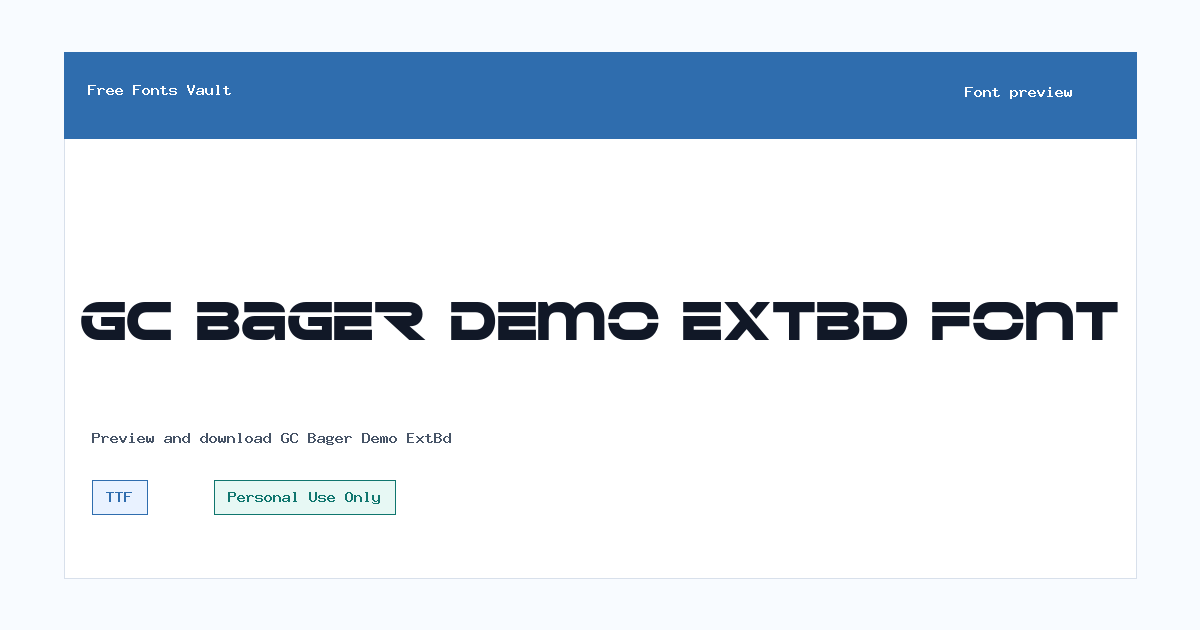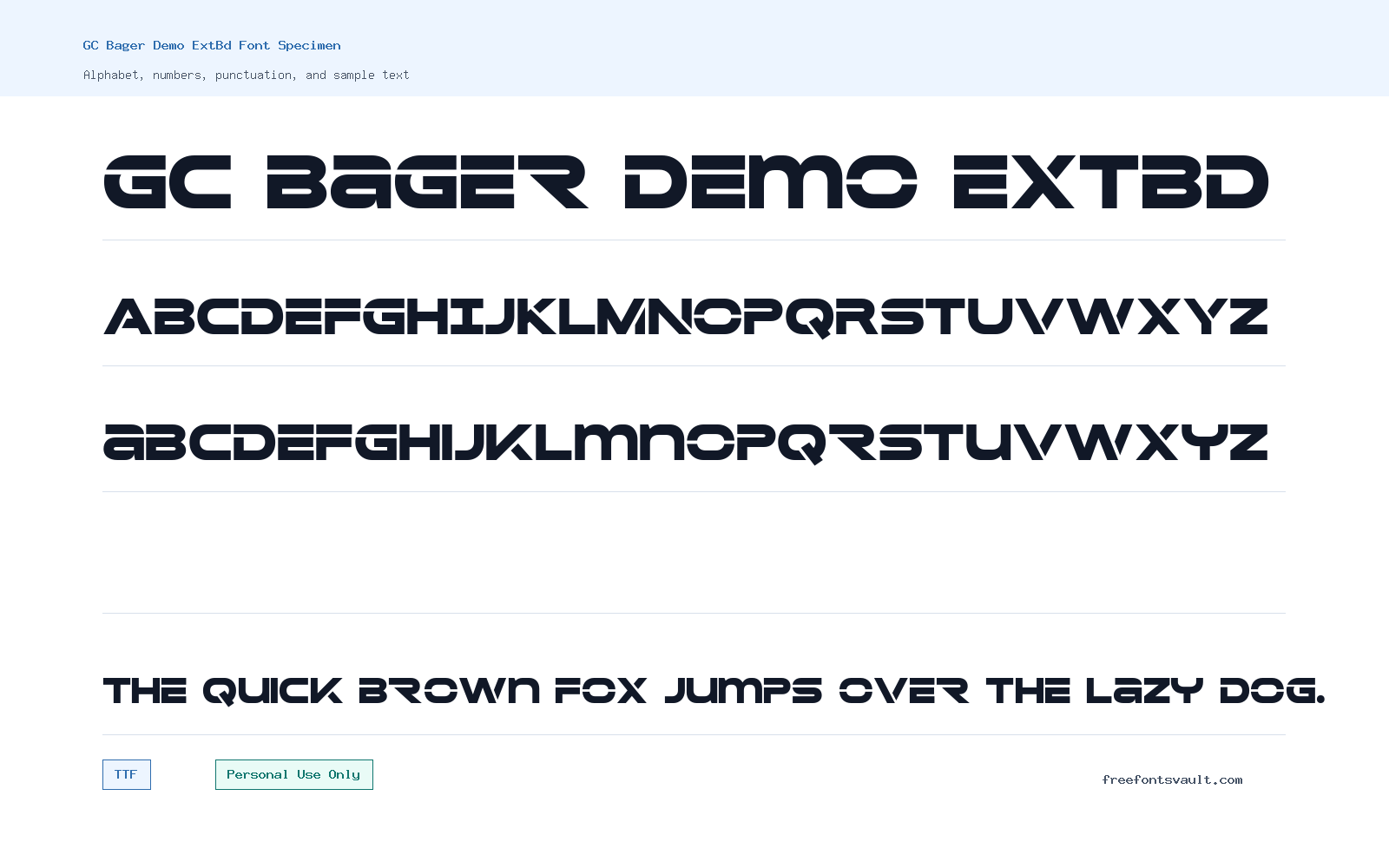
GC Bager Demo ExtBd
GC Bager Demo ExtBd font preview showing the family name
GC Bager Demo ExtBd Font
GC Bager Demo ExtBd font specimen showing alphabet, numbers, and sample text
GC Bager Demo ExtBd is an extra-bold sans serif demo font made for strong, compact display text. It is best treated as a personal-use font, so check the license carefully before using it in client, brand, product, or commercial work.
About GC Bager Demo ExtBd Font
GC Bager Demo ExtBd has the kind of heavy weight that works best when the text needs to be noticed quickly. The ExtraBold style gives words a firm presence, making it more suitable for short headlines than for long reading passages. Use the preview area to test uppercase words, short brand-style names, poster titles, and social graphics before downloading, because bold display fonts can feel very different depending on letter spacing, word length, and background contrast.
This font is a practical choice for mockups, personal posters, concept logos, title cards, packaging drafts, and web design experiments where you need a solid sans serif look. Keep the text short and give it enough space. If the letters feel crowded, increase tracking slightly or use fewer words. For web mockups, test it at large sizes first, then pair it with a calmer body font for descriptions, navigation, or supporting text. Since the file is a TTF font, it should work in many common design apps, but always test it in your own software before committing to a layout.
• Extra-bold sans serif style suited to display use
• Works best for short, high-impact text rather than long paragraphs
• Poster titles and event graphics
• Personal logo concepts and brand mockups
• Social media headers and quote graphics
• Website hero mockups and landing page headings
• Packaging drafts, labels, and bold display experiments
Use GC Bager Demo ExtBd where a strong headline is more important than long-form readability. Try it with short words, wide spacing, and simple layouts. For pairing, place it with a neutral sans serif or readable serif for body copy so the heavy display style does not compete with supporting text. In logo mockups, test the font at small and large sizes, then check whether the spacing still feels balanced. For posters and web hero sections, keep contrast high and avoid placing the letters over busy images unless you add enough background separation.
What kind of font is GC Bager Demo ExtBd?
It is listed as a sans serif demo font in an ExtraBold style. That makes it more useful for display text such as titles, posters, and mockups than for long paragraphs.
What should I pair with GC Bager Demo ExtBd?
Pair it with a simpler reading font. A neutral sans serif is a safe choice for body text, captions, menus, and descriptions, while GC Bager Demo ExtBd handles the main headline or display word.